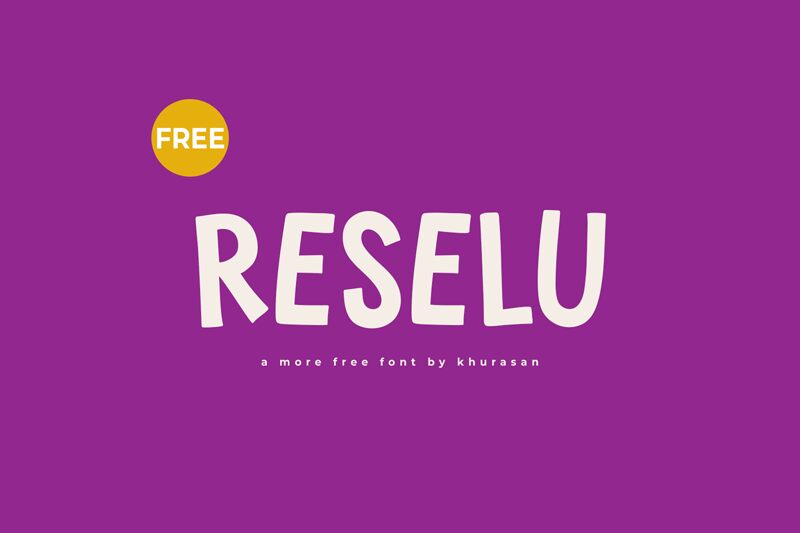
Reselu
Reselu font, designed by Khurasan, embodies a playful cartoon style that instantly captures attention. Its bold and whimsical characters are full of personality, exuding a sense of fun and creativity. The letters flow with an expressive fluidity, making them stand out in any application.
This font is perfect for eye-catching titles, vibrant branding, or playful packaging designs. Its engaging curves and dynamic shapes invite curiosity and draw the viewer in, making it particularly suited for children’s products or creative projects aiming to convey joy and excitement. Whether used in a playful logo or lively poster design, Reselu brings a unique charm that leaves a lasting impression.